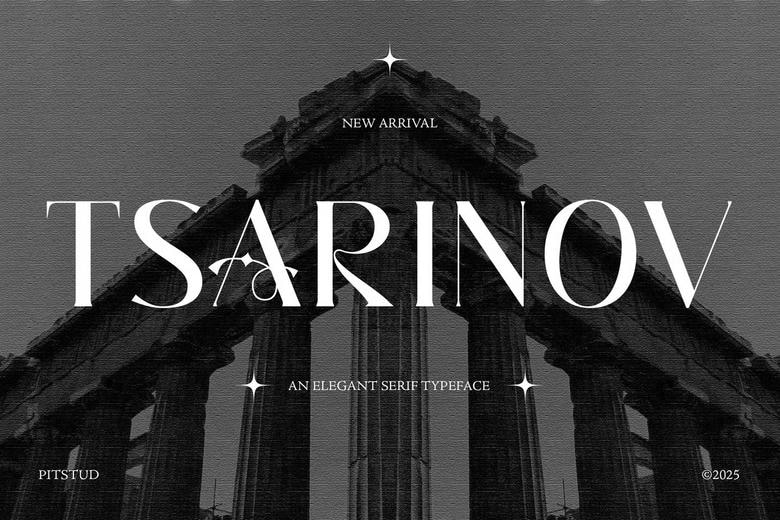
Tsarinov Font
Tsarinov – elegant medieval serif is a luxurious elegant medieval serif font, which will beautifully decorate your branding and design projects with royal aristocratic taste. Influenced by medieval aesthetics, this font with modern serif elegance brings a stylish, professional yet modern feel to logos, marketing materials, packaging, and digital applications.
Whether you’re designing a luxury brand, editorial layout, or a wedding design, TSARINOV will add a classic and graceful touch to your design. Perfect for use in luxury logos, wedding invites, fashion branding and boutique packaging.
Tsarinov Elegant Medieval Serif Font